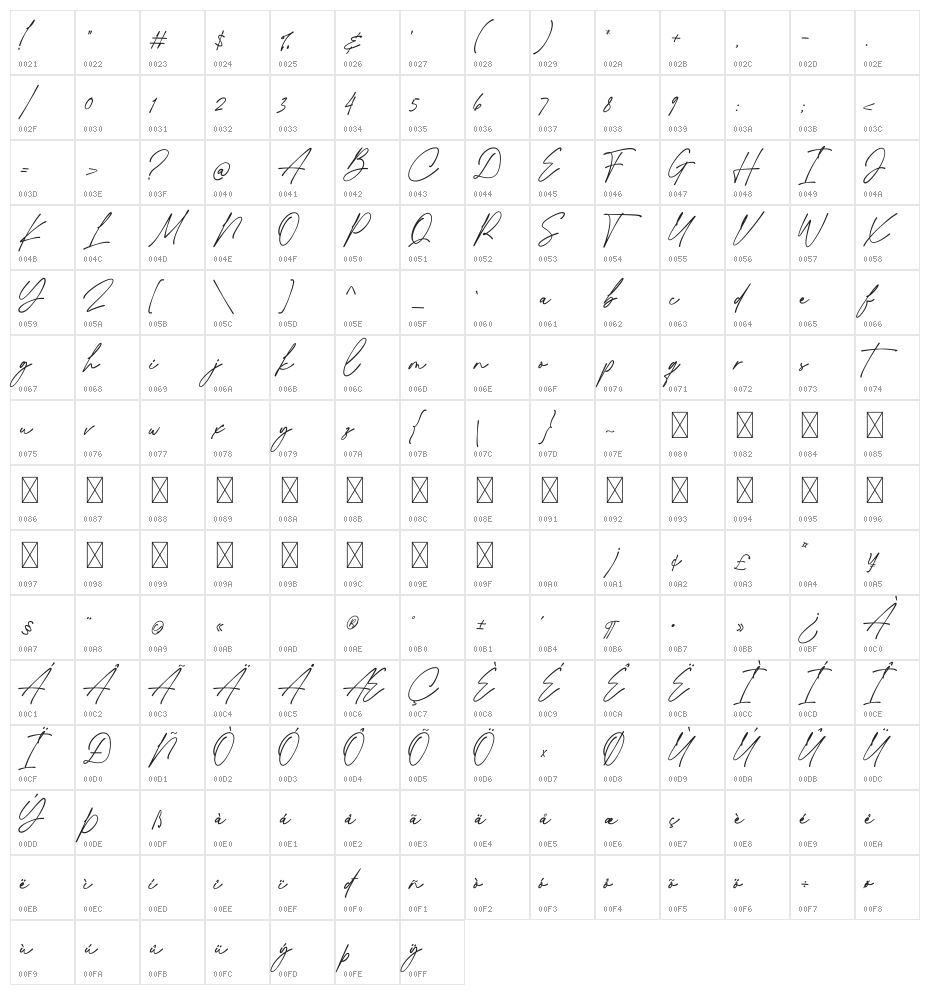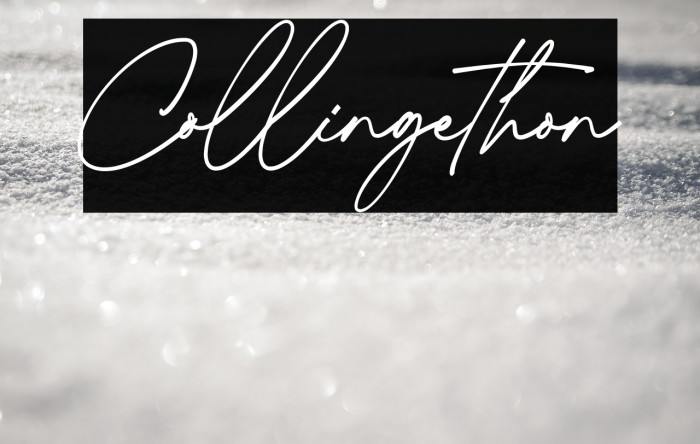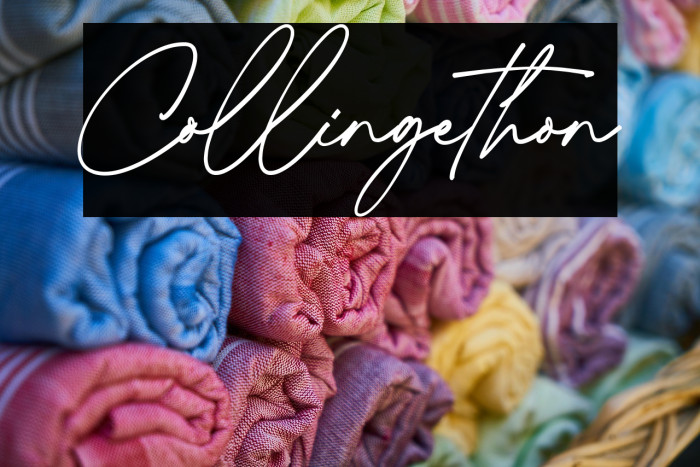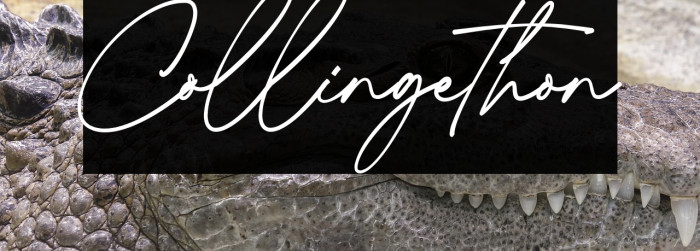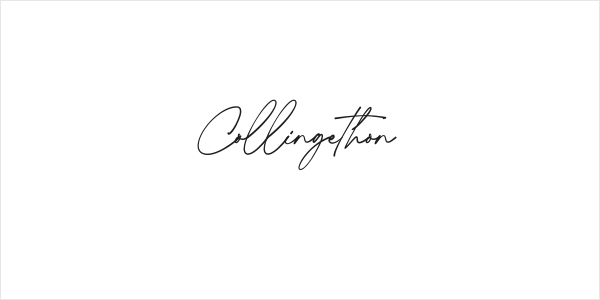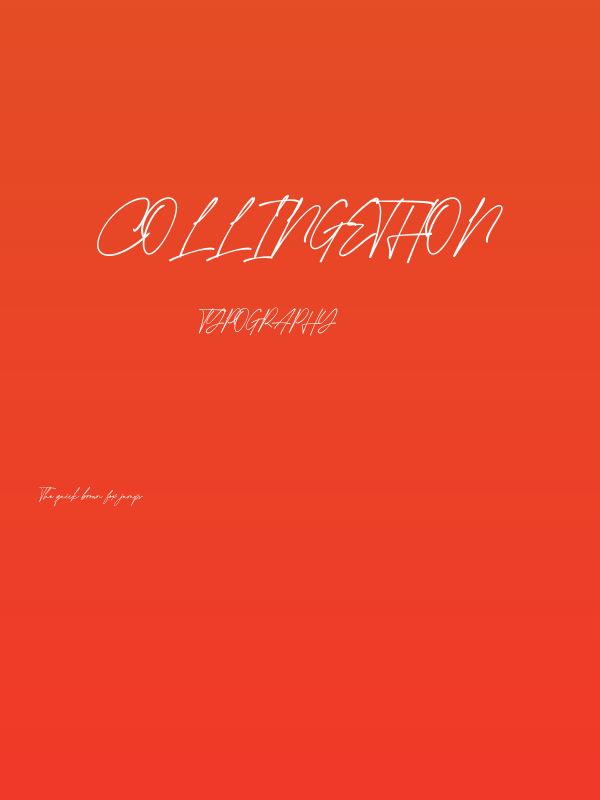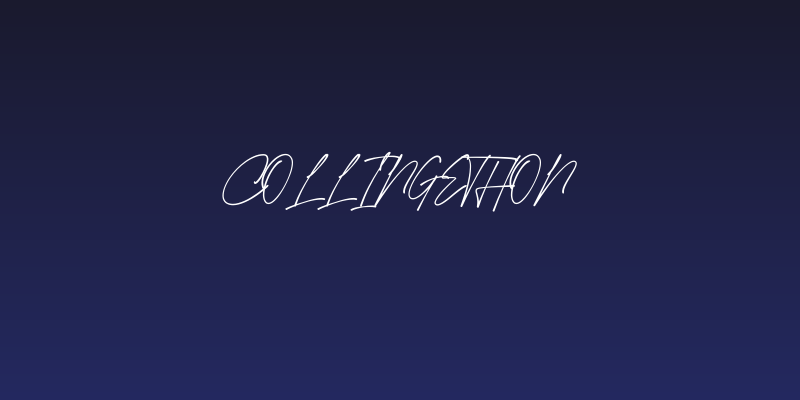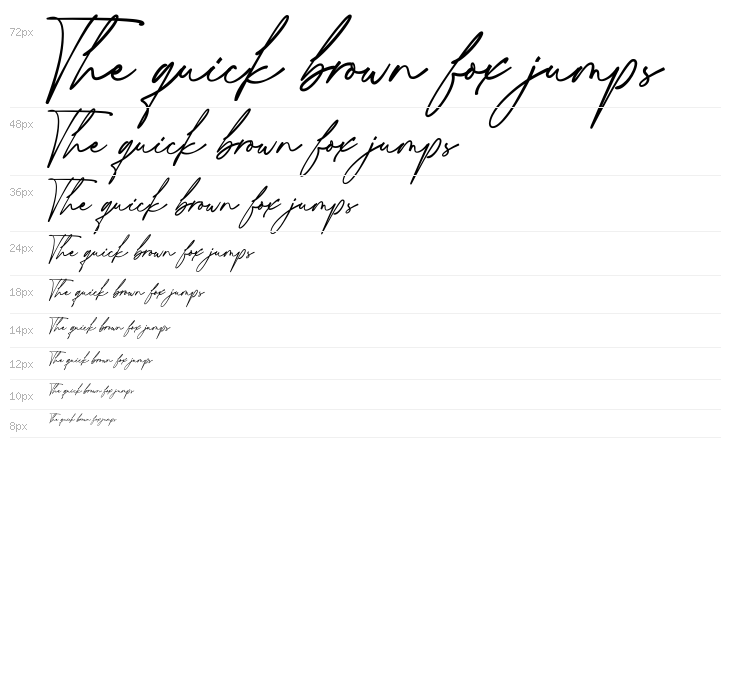
Collingethon Font
Collingethon Description
A flowing, cursive script font with a handwritten style, featuring connected letters and a casual, elegant appearance.
| Use Case | Logos, Invitations, Personal notes |
| Proposed Projects | Invitations, greeting cards, personal branding. |